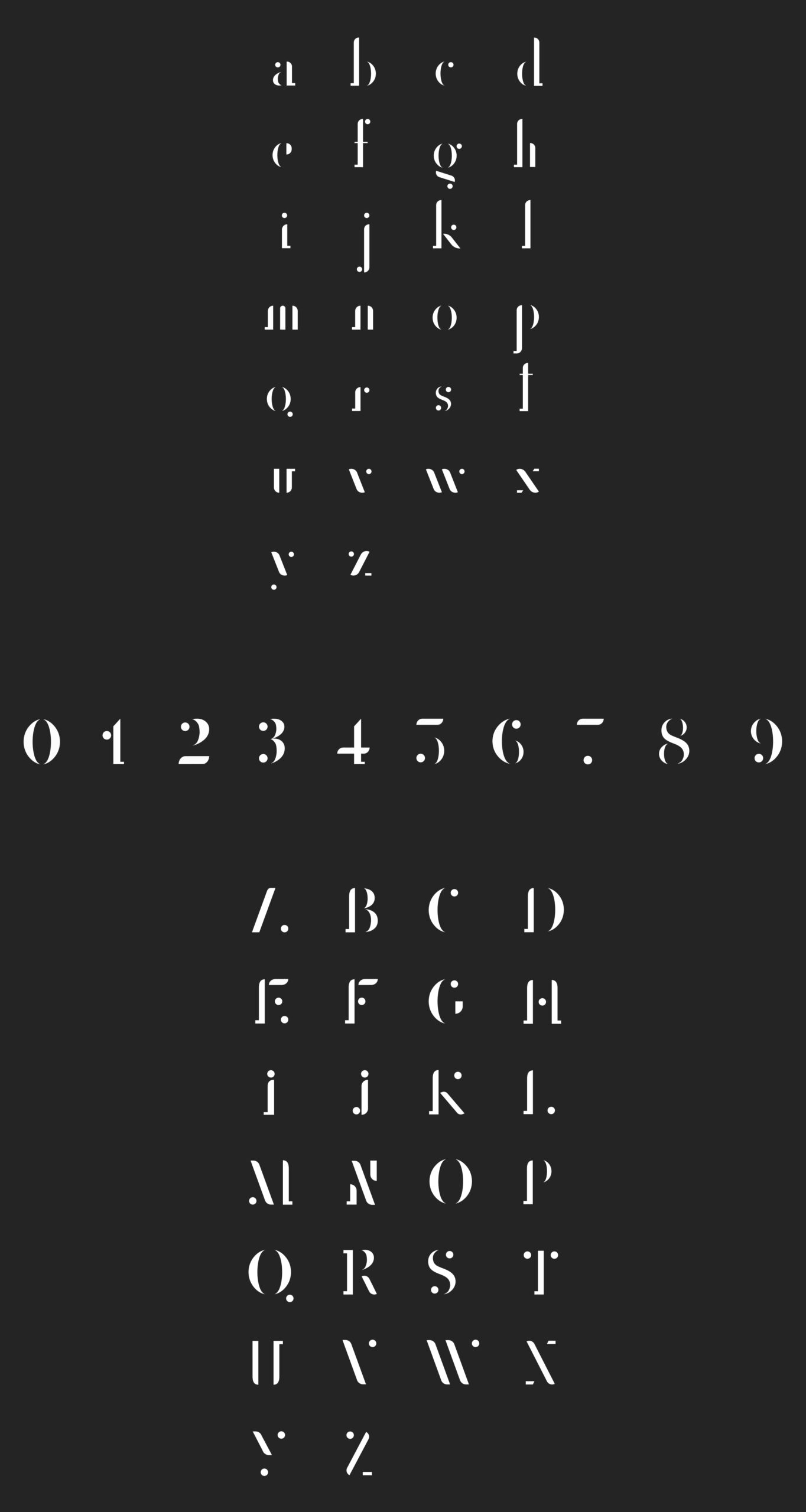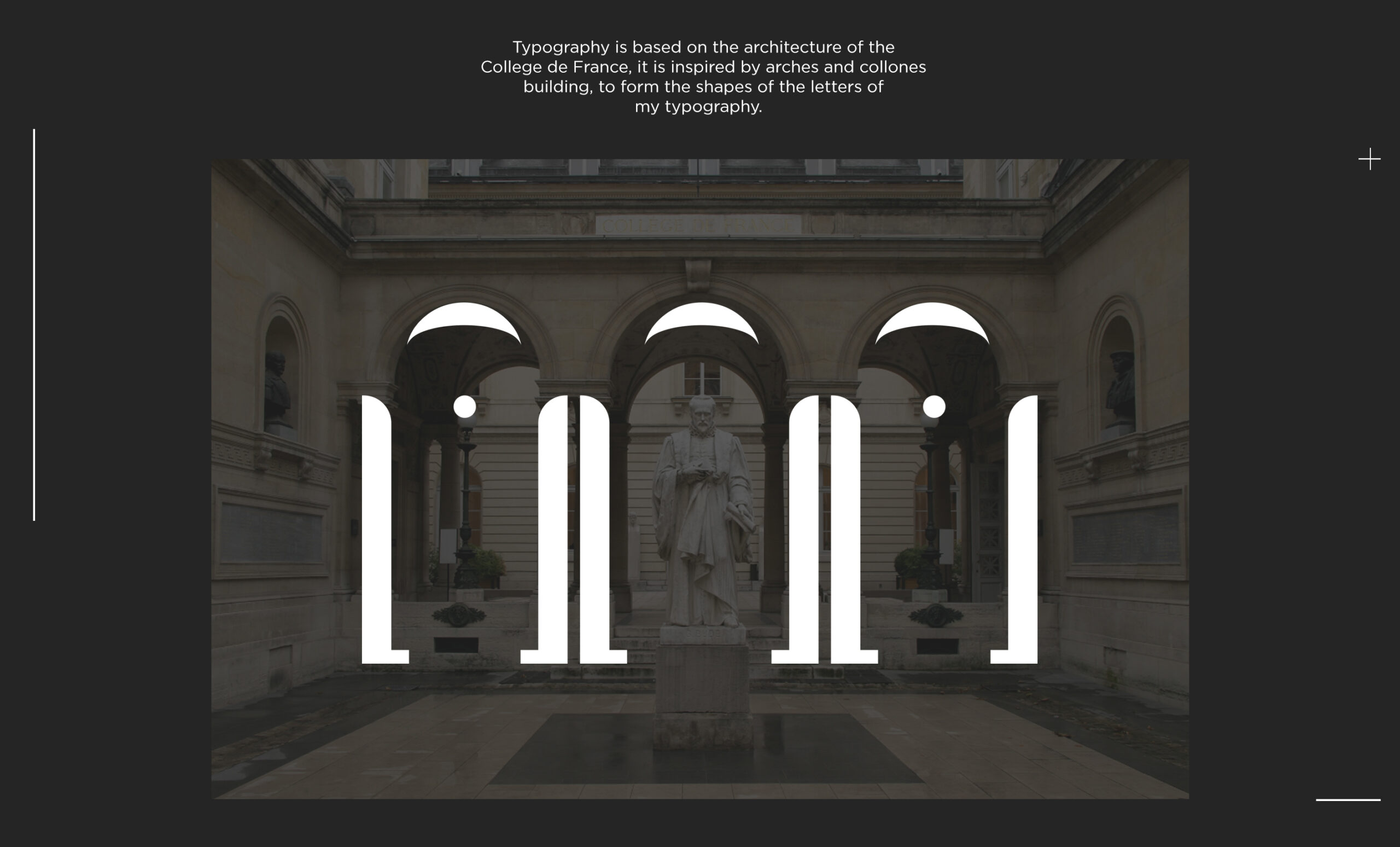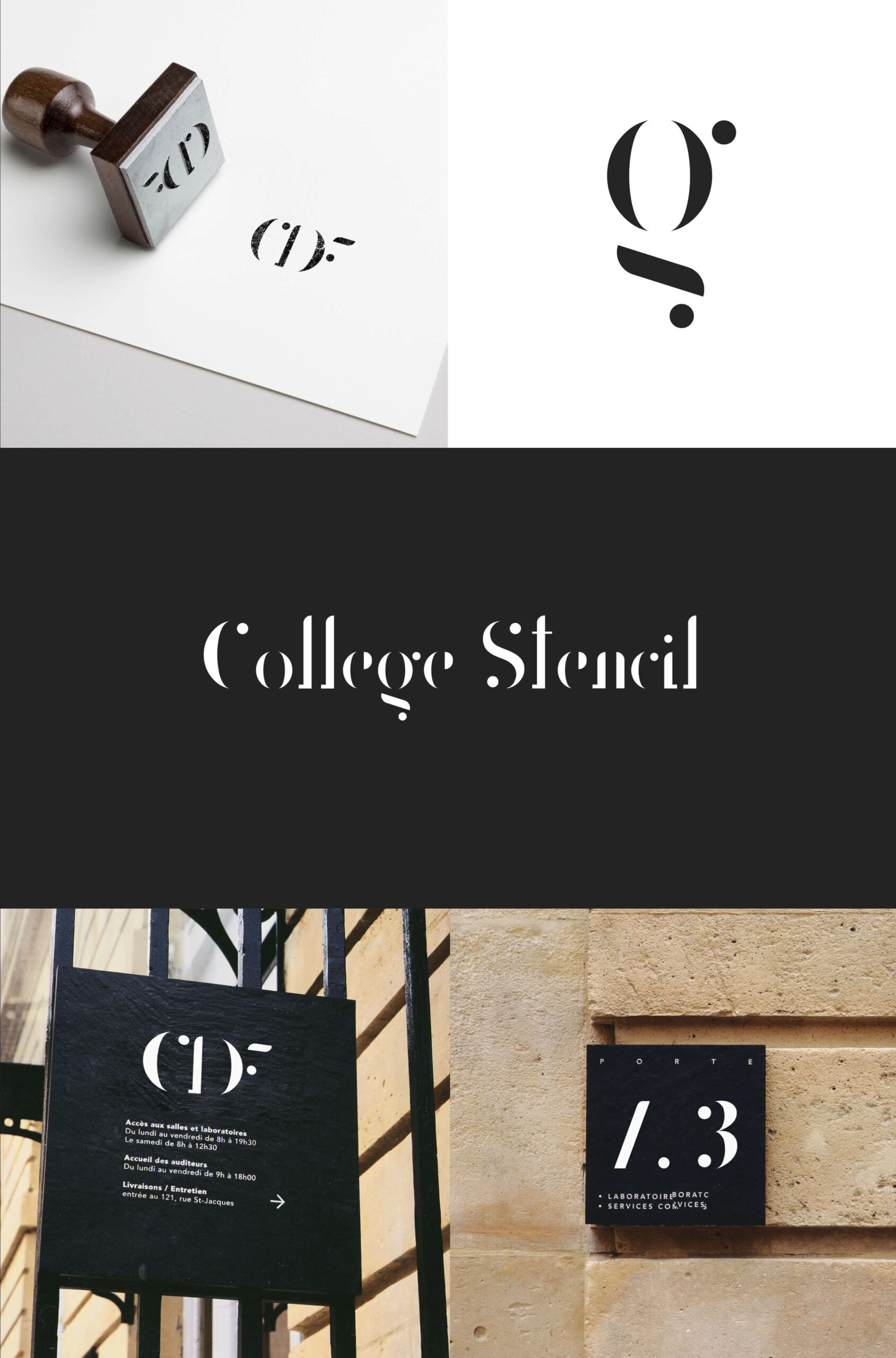
Give your typeface toolbox an elegant makeover with the College Stencil Font. Created by Corentin Riviere from Nantes, France the font was inspired by the arches & columns of the buildings at the Collège de France. Ideal for headlines, logos, branding and short bursts of text. Free for personal and commercial use!